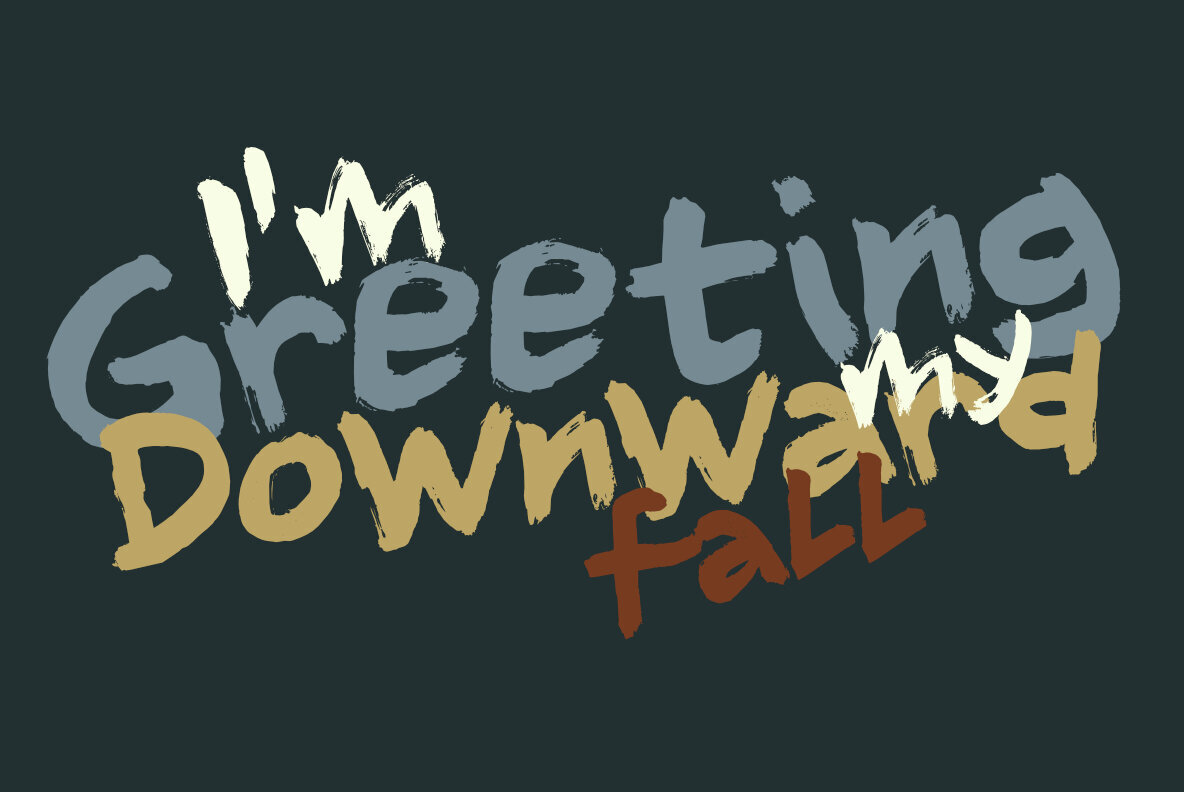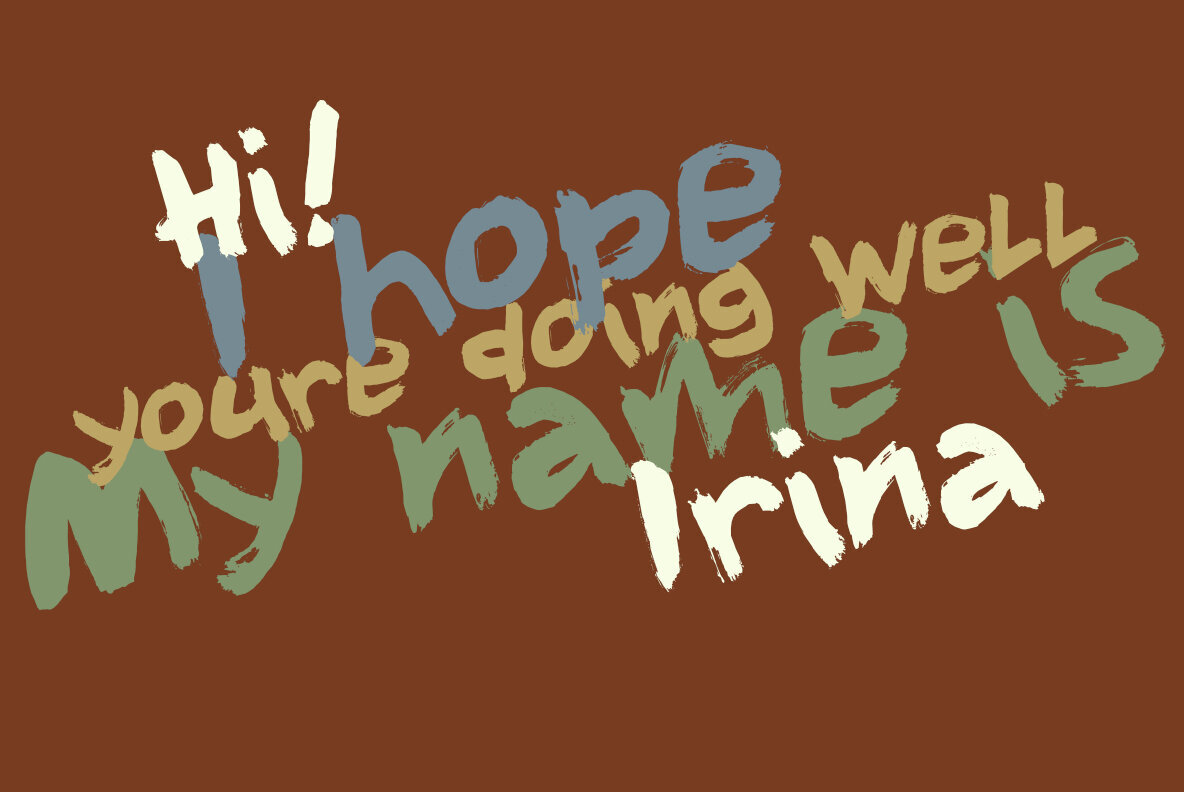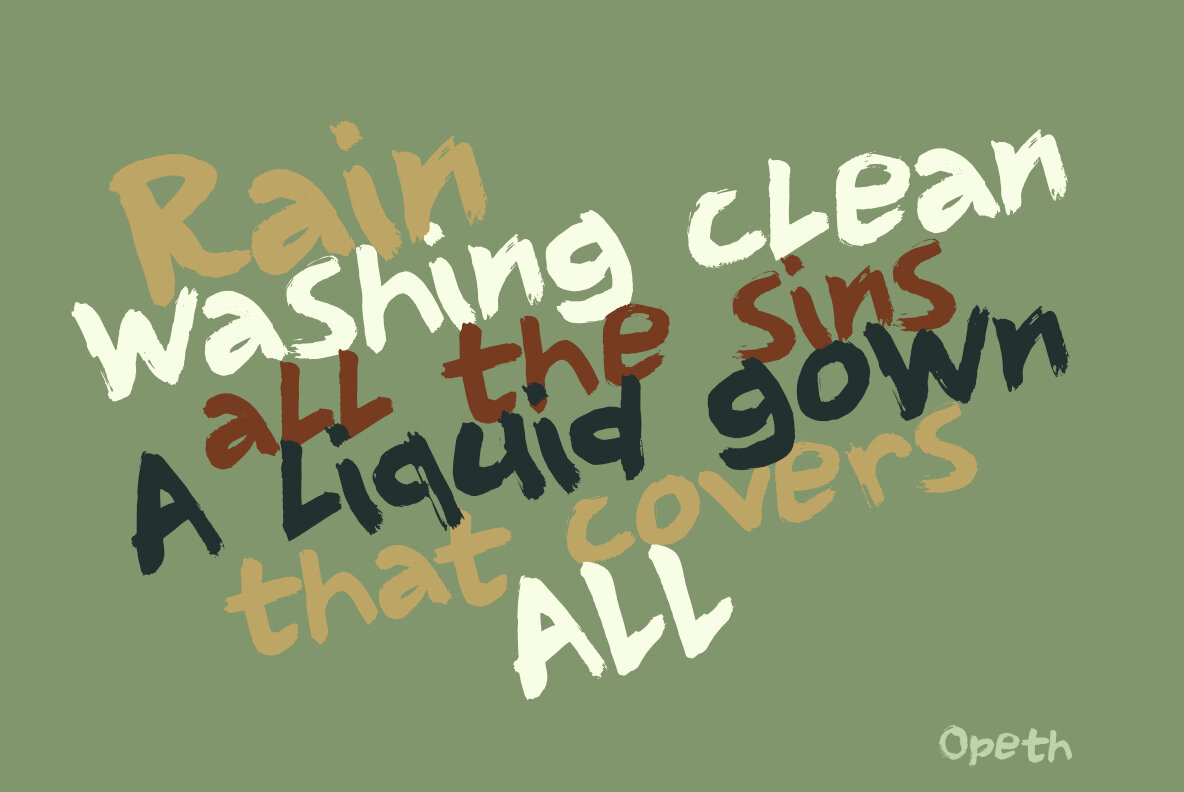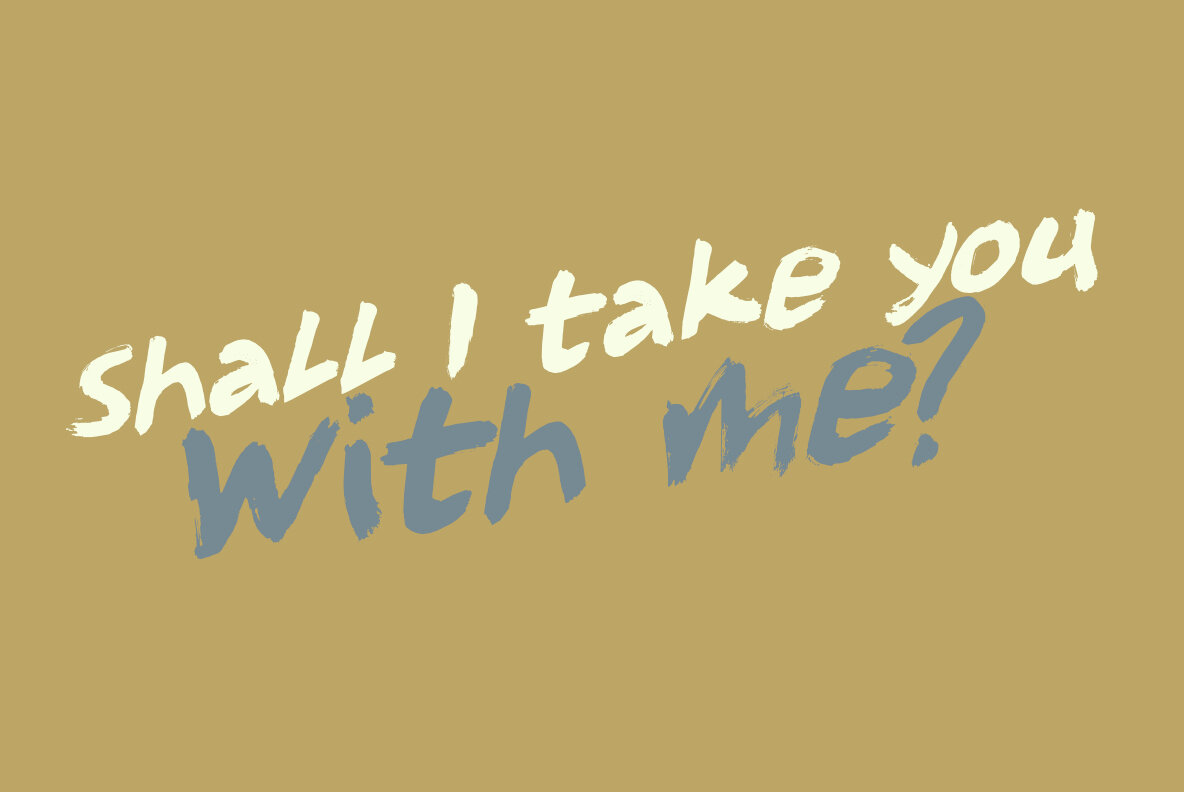
Downward Fall 2024 Font
Downward Fall 2024 Regular
Downward Fall 2024 Italic
Downward Fall 2024 is an updated brush font that builds on the charm of its original version, released a decade ago. This new iteration offers extensive language support, making it ideal for a diverse range of design projects. The enhancement of 'real' lowercase letters provides designers with more flexibility and creativity when crafting unique typography.
This version can be used seamlessly alongside the original Downward Fall, offering a cohesive design experience. Perfect for both print and digital media, this font is versatile, ensuring your projects maintain a consistent aesthetic. Whether you're creating logos, posters, or web designs, Downward Fall 2024 provides the tools you need for impactful typographic expression.